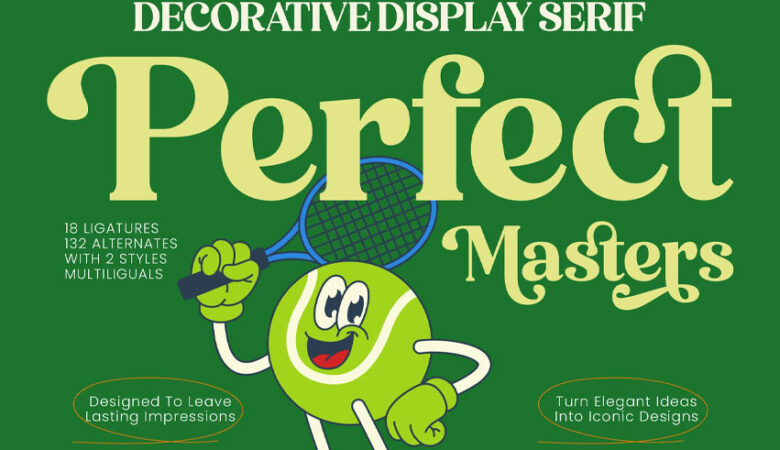
Lemonta Font is designed to provide a neat and classy look to whoever we are in front of. This is in concurrence with the feature of the letters which are very neat and have no filler content in each of the letters. Lemonta Font has a good stature and gives a rather composed impression. Thus, those who will read different texts written in this font do not have to make an effort to be able to read and comprehend it, in other words, this is a clear font.
Lemonta font can be used for formal occasions like weddings and many parties which call for celebration. It may be applied for creating logos of fashionable brands, business cards, covers of books and magazines. This font can be used for small or large print and will look good at close up or from a distance.
Lemonta Font Preview